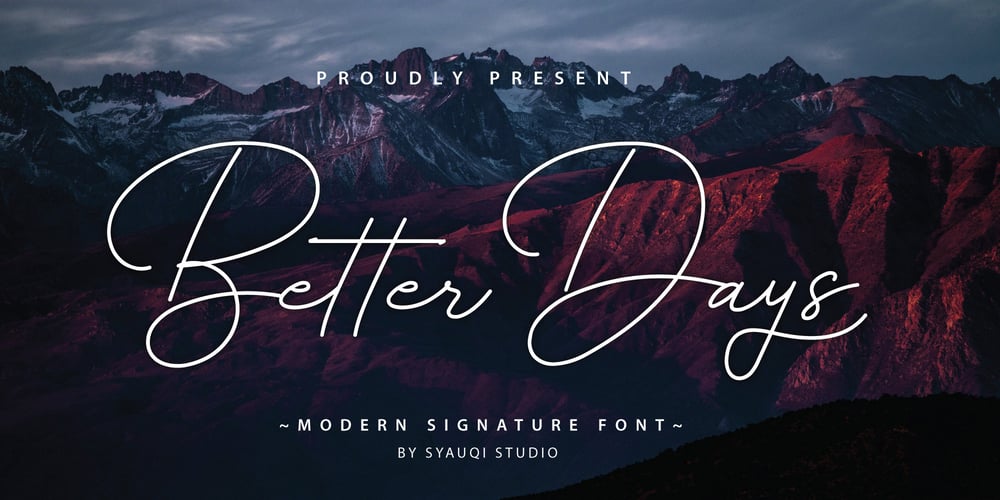
Better Days
Better Days font
Better Days Font Family was designed by Muhammad Asroful Umam and published by Syauqi Studio. Better Days contains 1 styles and family package options. “Better Days Script” consists of a fashionable sophisticated signature-style script with its own unique curves and an elegant inky flow. People usually use Better Days Font as an elegant touch and signature-like font. Better Days font is very good to be used in any project where it needs handwriting taste:photography, watermark, social media posts, advertisements, logos & branding, invitation, product designs, label, stationery, wedding designs, product packaging, special events or anything that need handwriting taste.Features: Uppercase & Lowercase Punctuation & Other Alternates & Swash Ligatures Multilingual Support To fully access the font’s features, we recommend using programs that support OpenType features. This will allow you to access glyphs directly on the same panel without copy/pasting each glyph. Additionally, the OpenType panel allows you to turn on standard ligatures, which can automatically change letters for available ligatures.